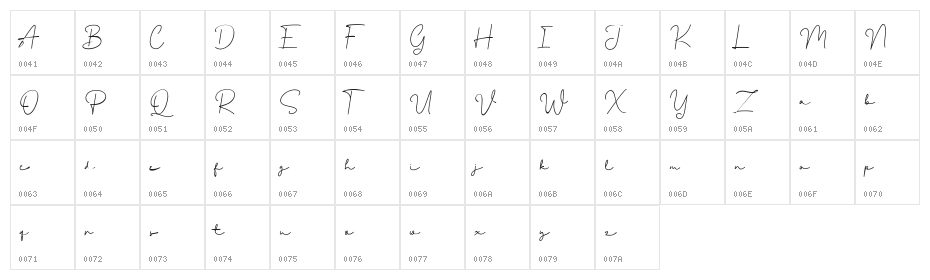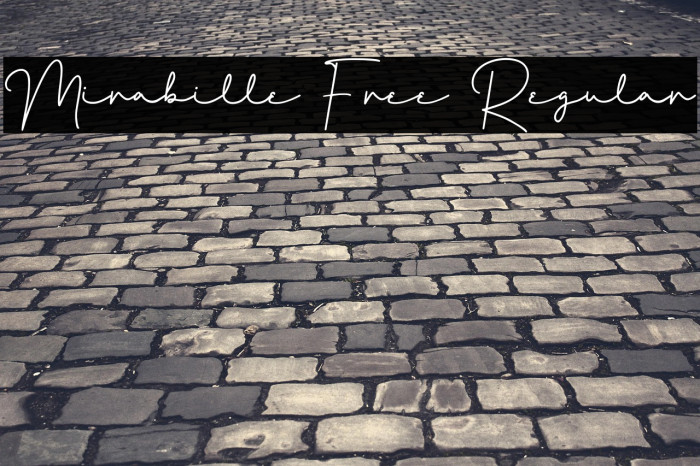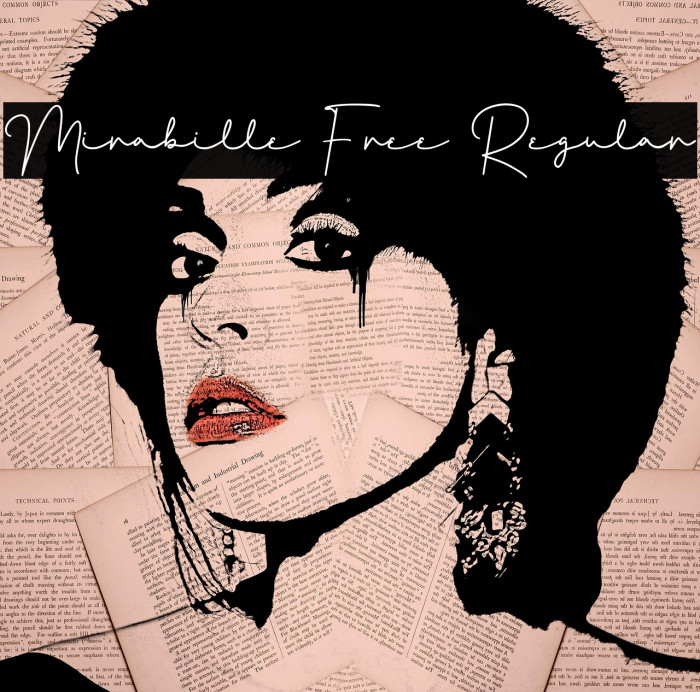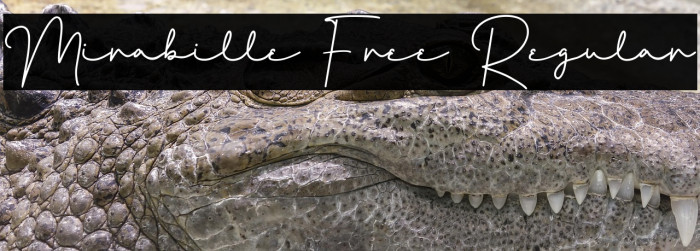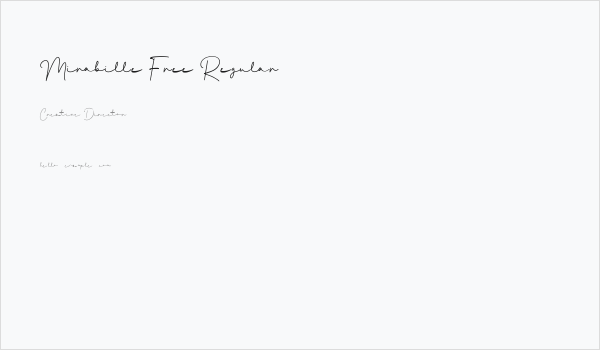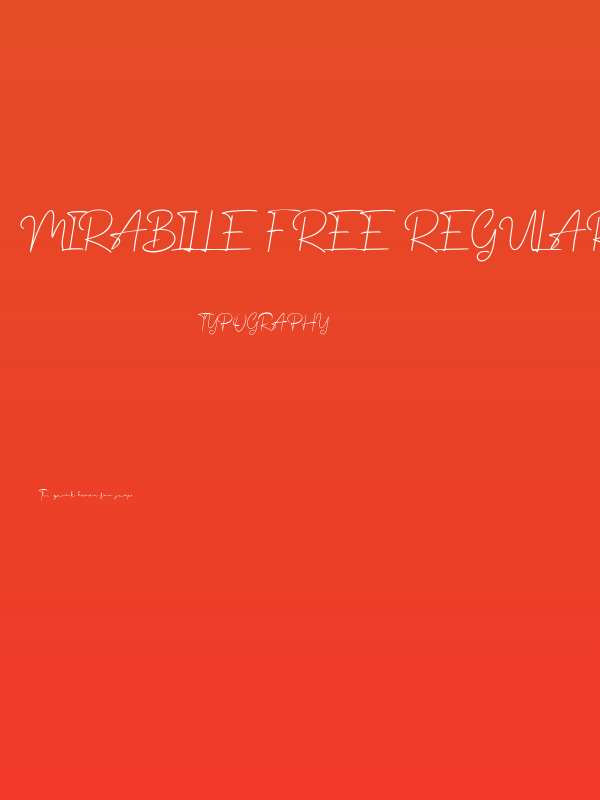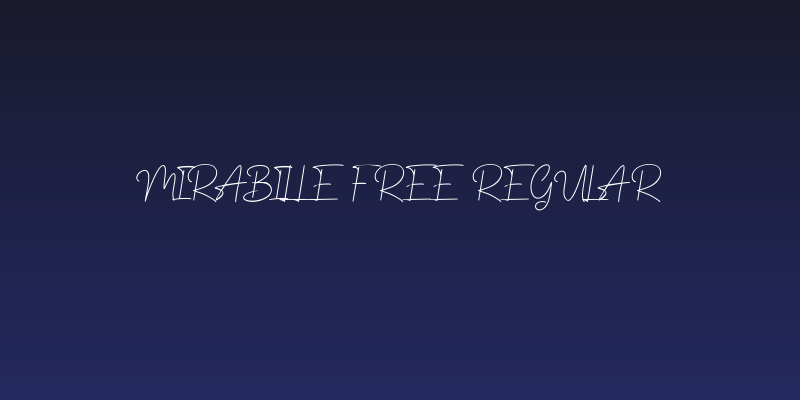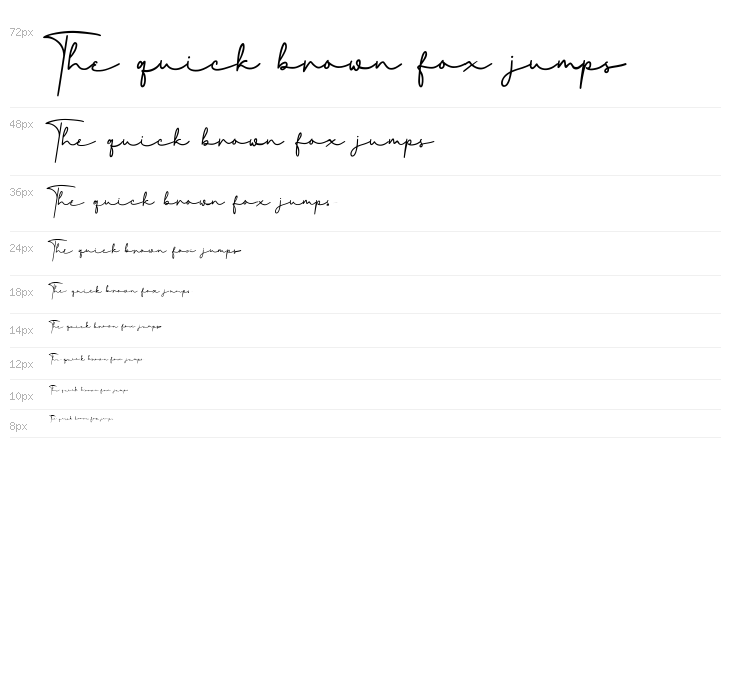
Mirabille Free Regular Font
Mirabille Free Regular Description
This font features an elegant, flowing script style with a handwritten appearance. The uppercase letters are characterized by their tall, slender forms and graceful loops, giving them a sophisticated and artistic flair. The lowercase letters maintain a consistent flow, with smooth, connected strokes that enhance the font's cursive nature. The overall design is delicate and refined, making it suitable for projects that require a touch of elegance and personal charm. The font's thin lines and gentle curves create a sense of movement and fluidity, while the spacing between characters is balanced to ensure readability.
| Overall Style | Elegant, Handwritten |
| Proposed Projects | Ideal for wedding invitations, greeting cards, personal branding, and elegant packaging designs. |